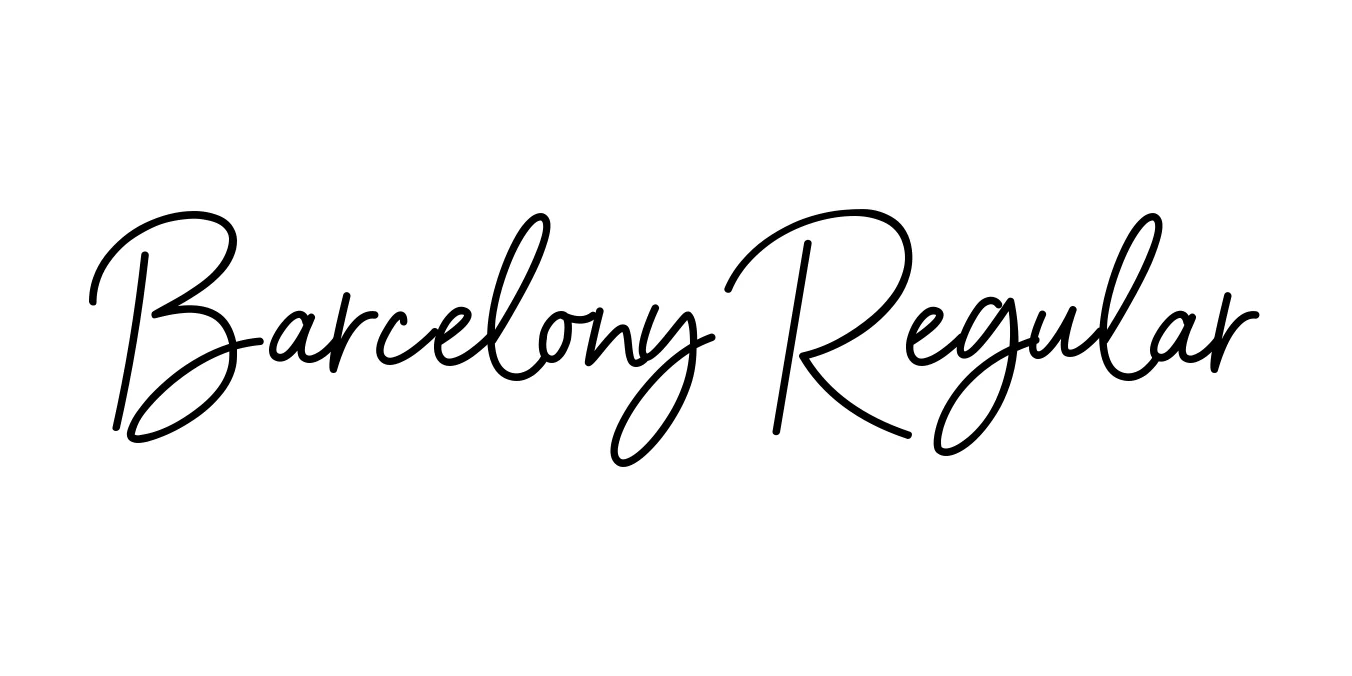
Barcelony Regular
Designed by Maulana Creative
| Category | Script / Signature |
| Designer | Maulana Creative |
Barcelony Regular is an elegant monoline signature script font designed to convey a sense of sophistication and personal touch. Created by Maulana Creative, this typeface features smooth, flowing strokes and balanced letterforms that mimic natural handwriting. Its refined aesthetic makes it a standout choice for high-end branding, fashion editorials, and luxury packaging designs.
The font's versatility lies in its clean lines and professional appearance, which maintain high legibility even in small sizes. Barcelony Regular is frequently utilized in the wedding industry for invitations and stationery, as well as by photographers for watermarking their work. It provides a timeless look that bridges the gap between traditional calligraphy and modern digital design.
Barcelony Regular Best Uses
Perfect for creating romantic and high-end stationery designs.
Excellent for logos, business cards, and brand identities that require a personal touch.
Ideal for lifestyle quotes, Instagram stories, and aesthetic content creation.
Highly effective for professional watermarks and portfolio headers.